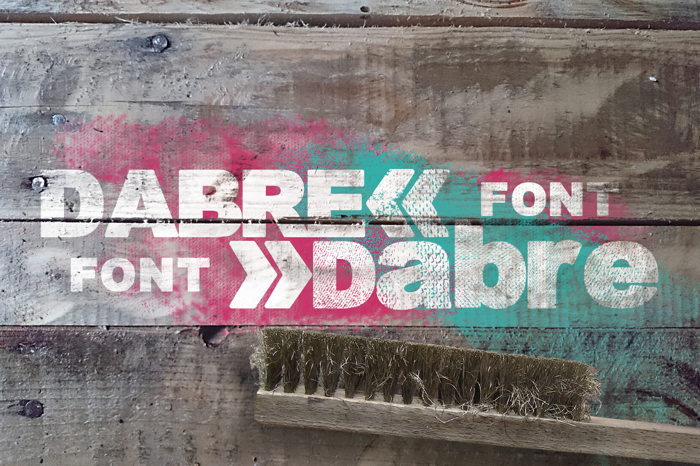
Dabre Grunge Font
Dabre Grunge Style
This is handmade Font, Calligraphy style, Suitable for design, element design, wedding, event, t-shirt, logo, badges, sticker, and awesome work about summer.
Do you have this font in solid color without the texture? Love the letter shapes. Hoping to get it without the white texture marks.